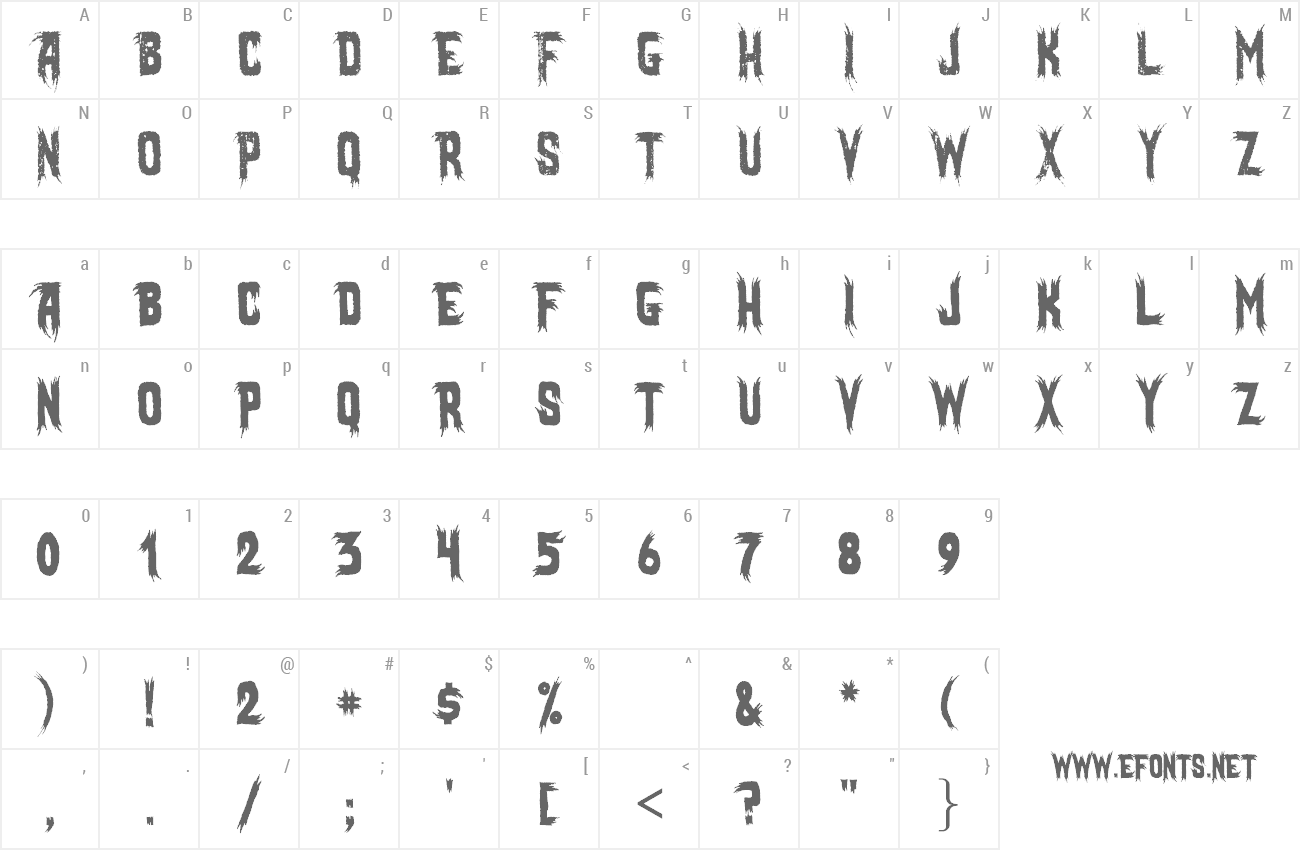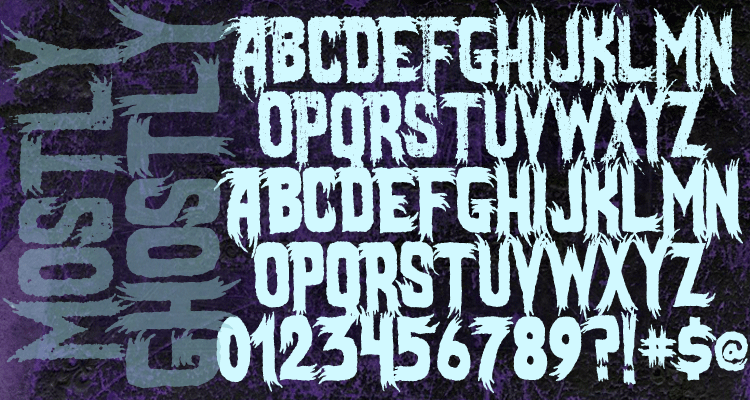
| Font name: | Mostly Ghostly |
| Author: | Sinister Fonts |
| Note by Sinister Fonts | |
| Created 2010, hand-lettered as an homage to classic horror movie poster fonts. |